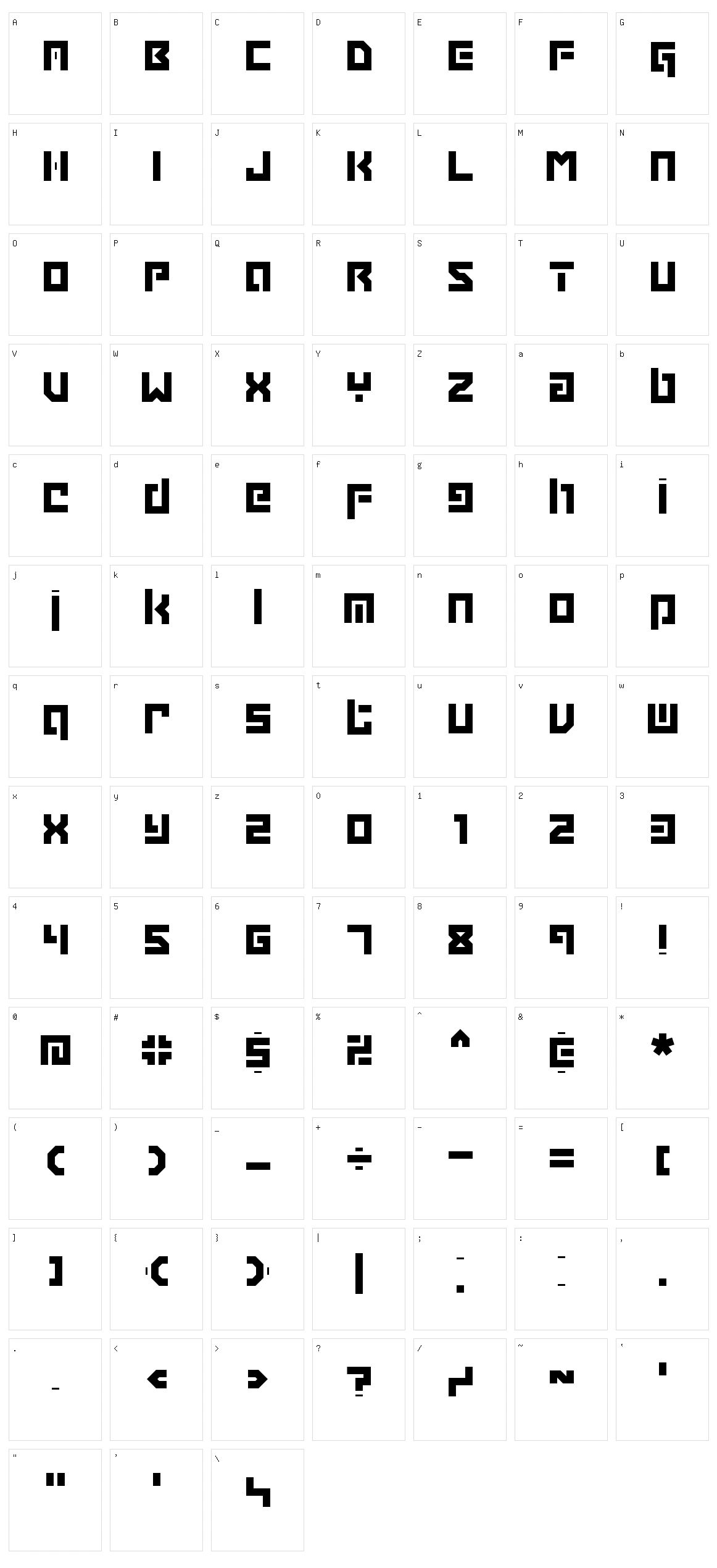
The free font Grapple BRK is carefully designed by Ænigma, showcasing a thoughtful balance of creativity and usability and falls under the Square font style. When you download the ZIP file, it contains only 5.5 KB of font files, making it lightweight and quick to download. Please review the license details below to understand permitted usage and distribution rights. If license information is not available, we recommend using this font for personal projects only or contacting the author directly for commercial usage permissions.
Grapple Created by Brian Kent